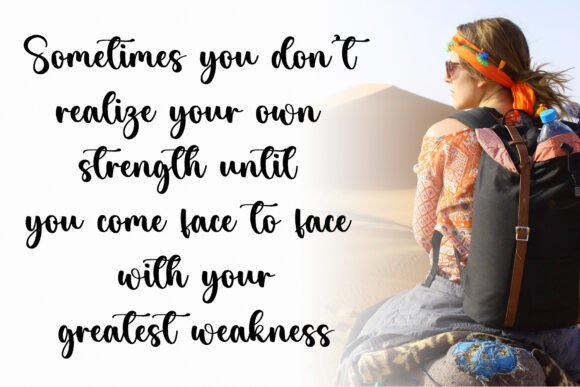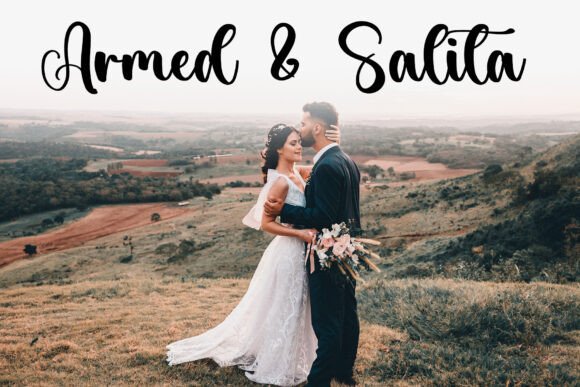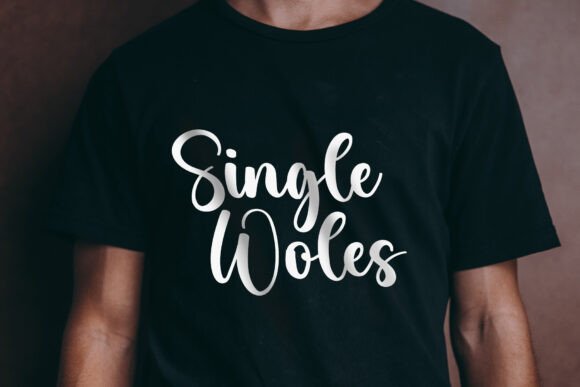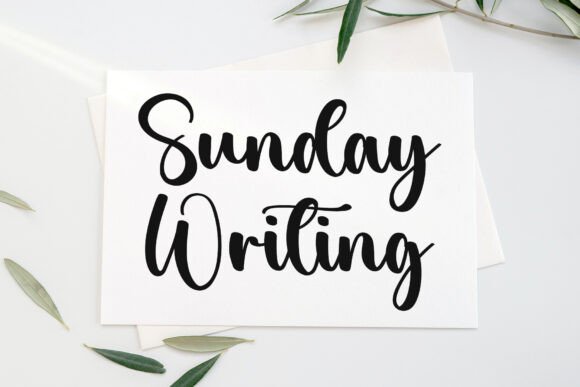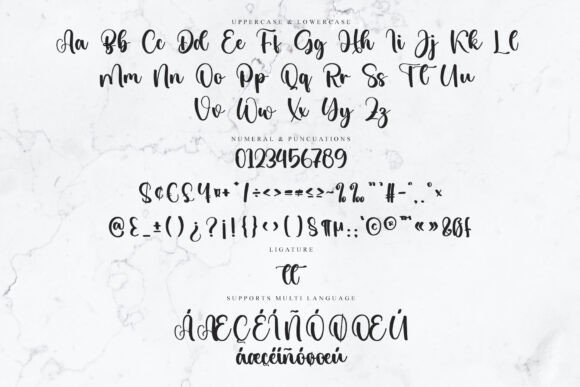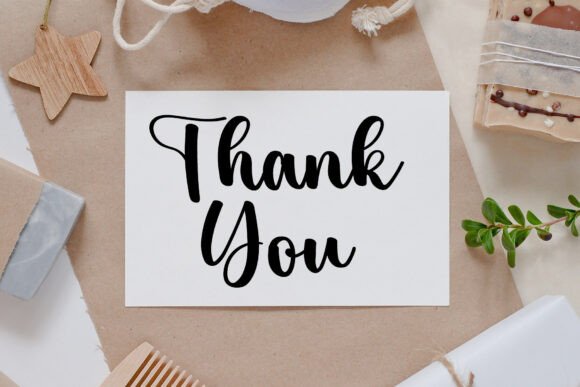
Unlock the Magic of Beautiful Caramel Font
Have you ever stumbled upon a font that makes your design dreams come true? For many creatives, that moment is a game-changer. It’s the spark that ignites a flurry of ideas, from crafting the perfect Instagram post to creating a stunning wedding invitation. For designers like you, finding the right font can be a challenge. But what if I told you that there’s a font that can elevate your designs and leave a lasting impression?
Meet Beautiful Caramel Font, a beautiful, handwritten font designed to add a touch of elegance to your projects. Whether you’re a seasoned designer or a DIY enthusiast, this font is sure to bring your creative ideas to life. With its unique, cursive script, Beautiful Caramel Font is the perfect addition to any design project, making it a valuable asset for designers looking to take their work to the next level.
Beautiful Caramel Font Key Features
- Font Family: Beautiful Caramel
- Unique Characteristics: Elegant, cursive script with a warm, golden tone and subtle texture, ideal for invitations, wedding stationery, and other special occasions
Designer Review: Beautiful Caramel Font
I’ve had the chance to work with the Beautiful Caramel Font, and I must say it’s a lovely addition to any design project. ✨ The font’s warm and inviting tone is perfect for creating a cozy atmosphere, and it pairs well with a variety of colors and textures.
- ✨ Elegant and refined design makes it perfect for high-end branding
- ✨ Great for use in packaging design, labels, and other materials where a touch of warmth is needed
- ✨ Beautifully crafted serifs add a level of sophistication to any text
However, there are a few limitations to consider. ⚠️ The font can be a bit difficult to read at smaller sizes, and the spacing between letters can be a bit inconsistent in certain contexts. Additionally, the font may not be the best choice for projects that require a bold or edgy look.
Overall, I think the Beautiful Caramel Font is a great addition to any designer’s toolkit. While it may not be perfect for every project, it’s a versatile and stylish choice that can add a touch of elegance to a wide range of designs.
The Beautiful Caramel Font is perfect for:
- Creative branding and marketing materials.
- Food and beverage packaging labels.
For optimal results, pair the Beautiful Caramel Font with a clean and modern design aesthetic.
Alternative Fonts to Beautiful Caramel Font
Oswald
Oswald is a sans-serif font that is perfect for use in headings and titles. It has a strong, modern feel that works well for digital products and websites. Compared to Beautiful Caramel Font, Oswald is more geometric and lacks the distressed texture, making it ideal for clean and minimalist designs.
Playfair Display is an elegant serif font that is ideal for use in luxury brands and high-end products. It has a classic feel with intricate details, making it perfect for creating a sense of sophistication. Compared to Beautiful Caramel Font, Playfair Display is more ornate and formal, making it suitable for designs that require a touch of luxury.
Great Vibes is a script font that is perfect for use in creative and artistic designs. It has a playful, handwritten feel that works well for titles, quotes, and other text elements. Compared to Beautiful Caramel Font, Great Vibes is more fluid and cursive, making it ideal for designs that require a touch of whimsy.
Codystar
Codystar is a modern sans-serif font that is perfect for use in tech and startup brands. It has a clean, geometric feel that works well for digital products and websites. Compared to Beautiful Caramel Font, Codystar is more minimalist and lacks the distressed texture, making it ideal for designs that require a clean and modern look.